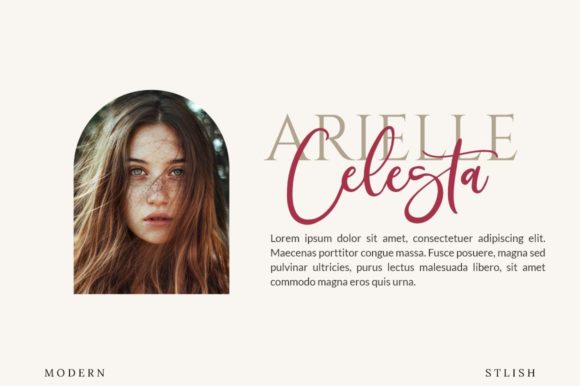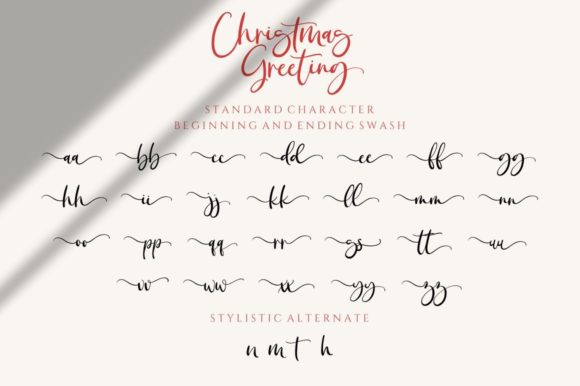
About Christmas Greeting Font
Christmas Greeting is a stylish and incredibly elegant script font. It looks stunning on wedding invitations, thank you cards, quotes, greeting cards, logos, and business cards. This font is PUA encoded which means you can access all of the glyphs and swashes with ease!